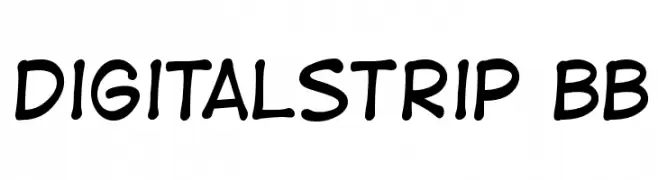
A playful, handwritten font with a bold and casual style.
A bold, handwritten font with a playful and dynamic style.
A dynamic, handwritten-style italic font with smooth, rounded strokes.
A playful, comic-style font with rounded, bold letterforms.